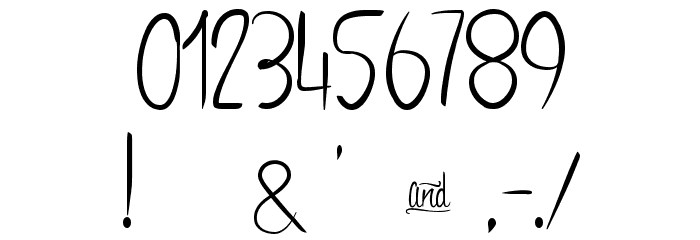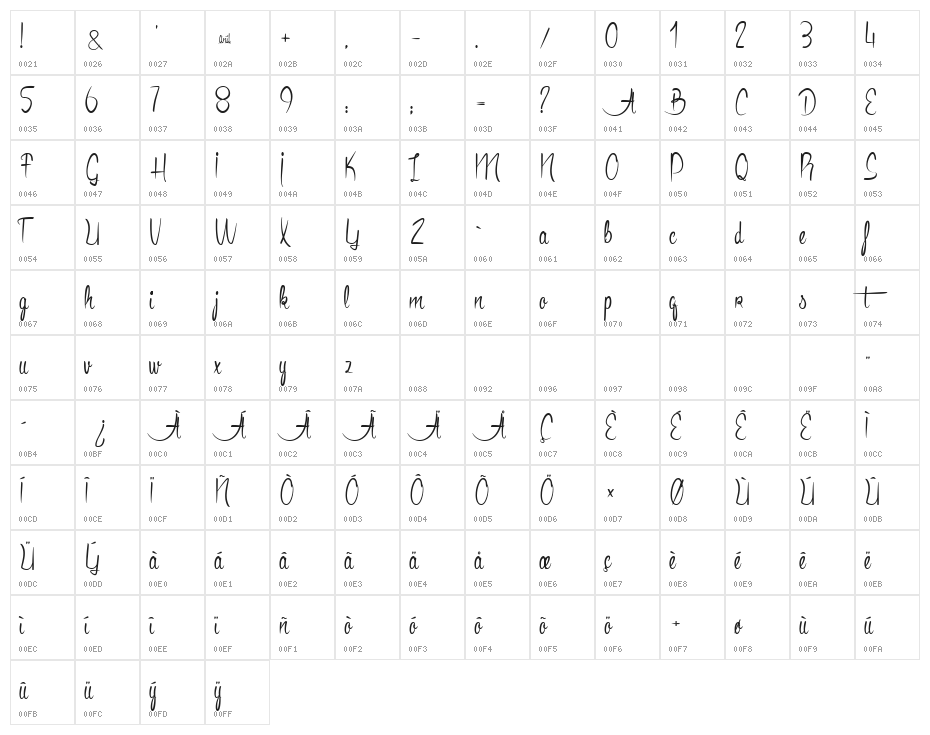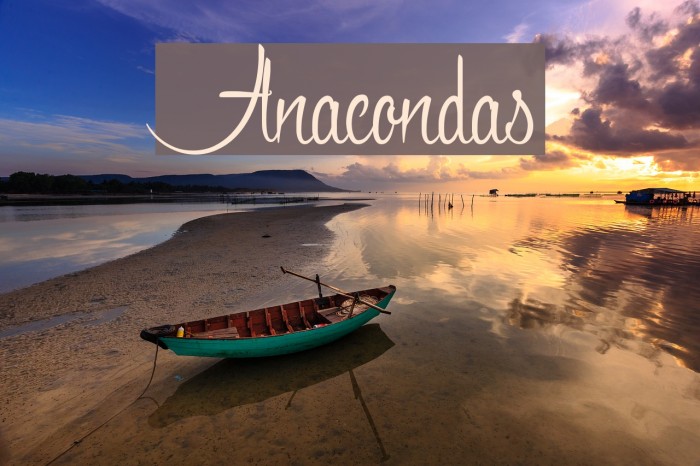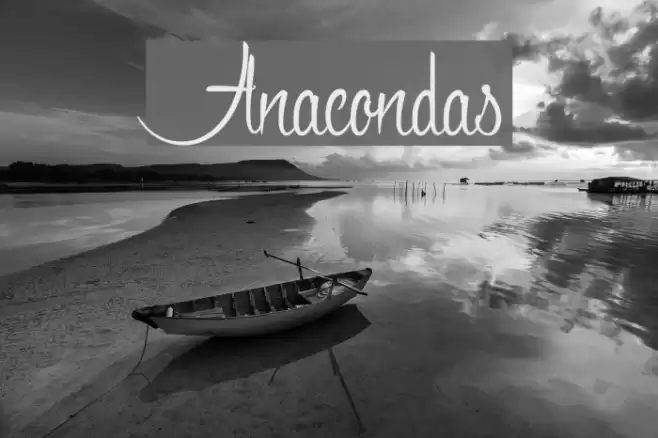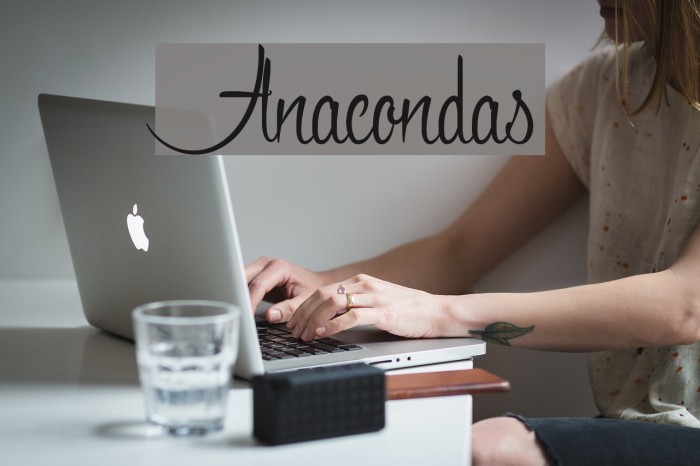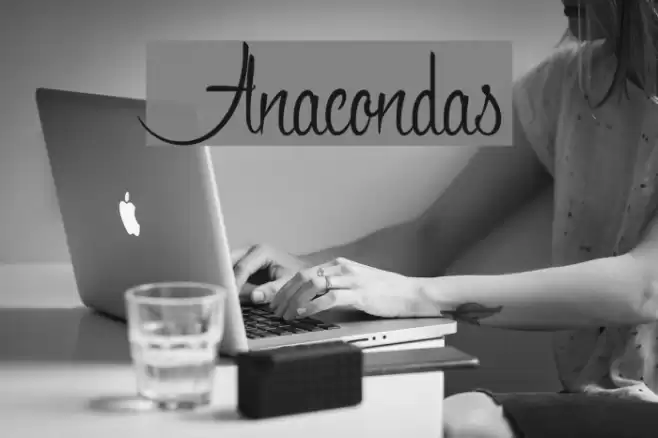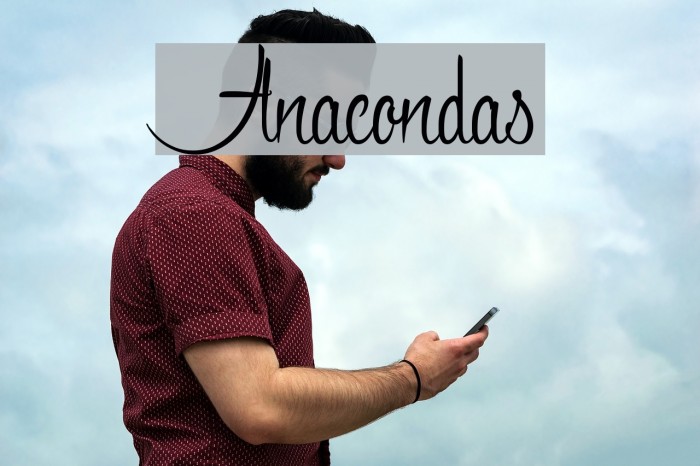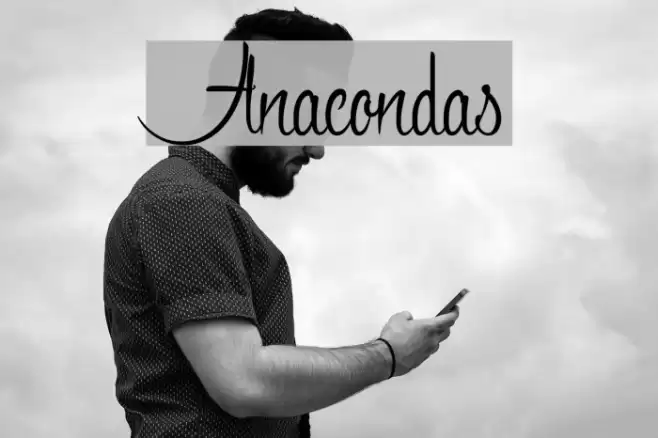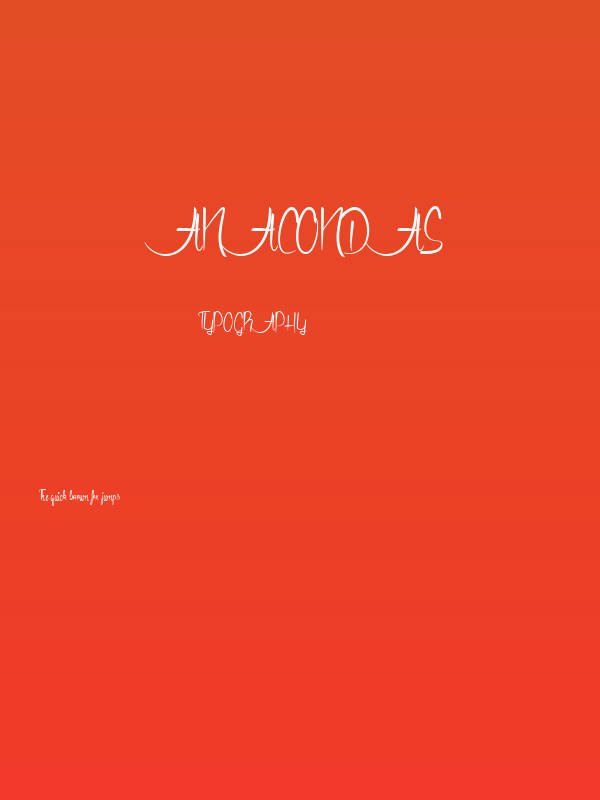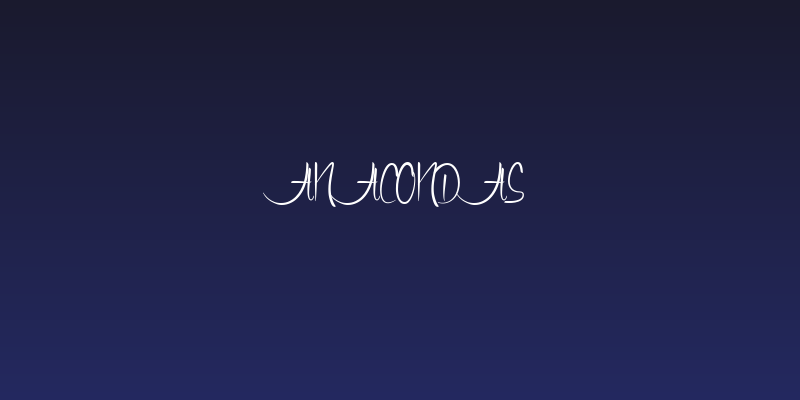
Anacondas Font
Anacondas Description
This font exhibits a unique and artistic flair, characterized by its elongated and flowing letterforms. The uppercase letters are tall and slender, with a distinct elegance that is both modern and classic. The lowercase letters maintain a consistent style, featuring smooth curves and a slightly whimsical touch. The numerals are well-integrated, matching the overall aesthetic with their graceful lines. Special characters are creatively designed, adding to the font's decorative appeal. This font's style is suitable for projects that require a touch of sophistication and creativity.